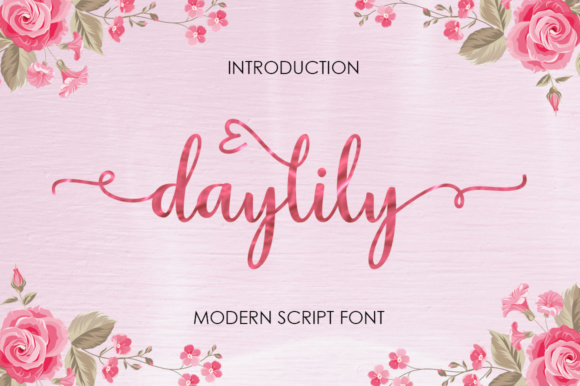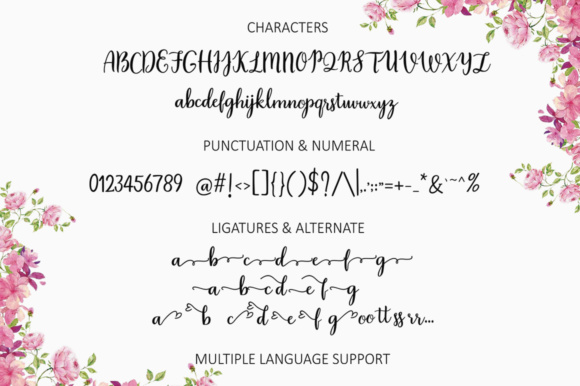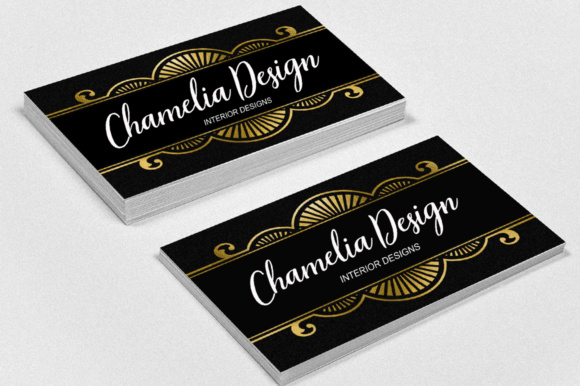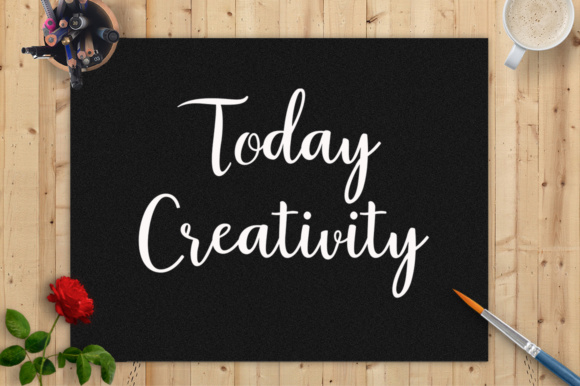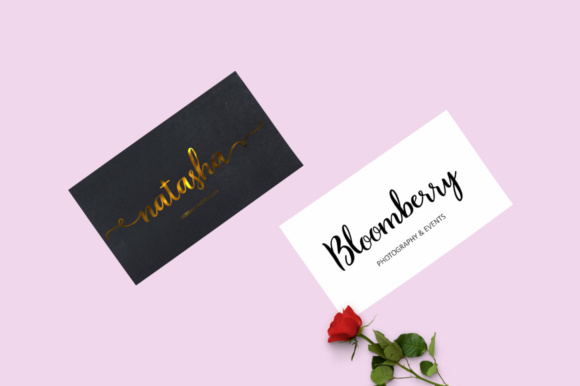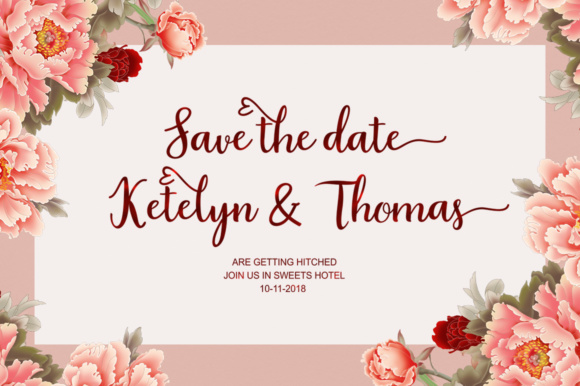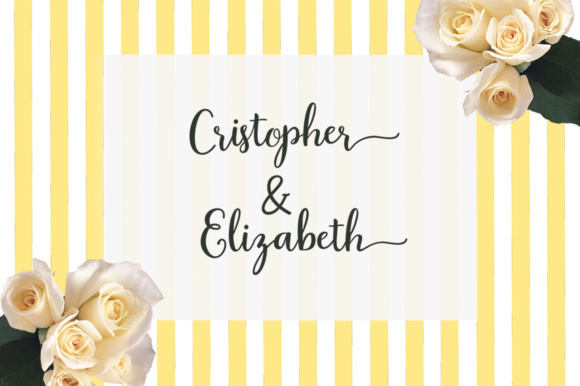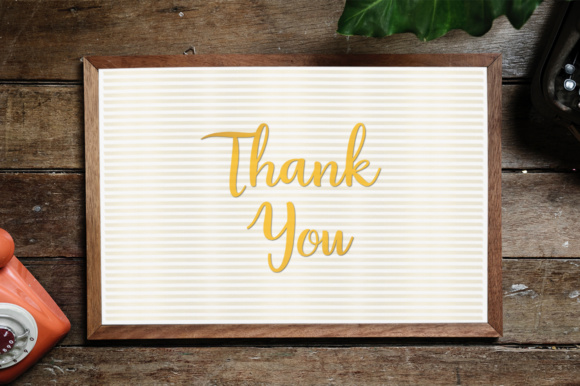
Daylily Script Font
About Daylily Script Font
The Daylily Script is a modern script font with an irregular baseline.
It’s trendy and feminine, and looks great on wedding invites, thank you notes, quotes, blogs and much more.